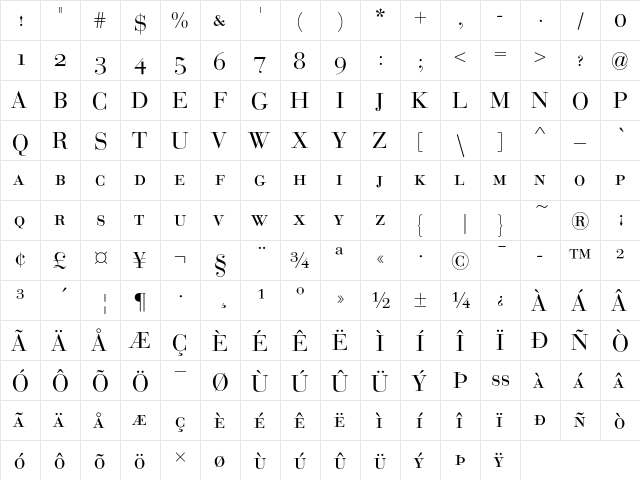
Bauer Bodoni SC D Regular
Design Context for Bauer Bodoni SC D Typeface
Bauer Bodoni SC D is a composed and adaptable typeface that performs quietly and consistently across a wide range of design contexts.